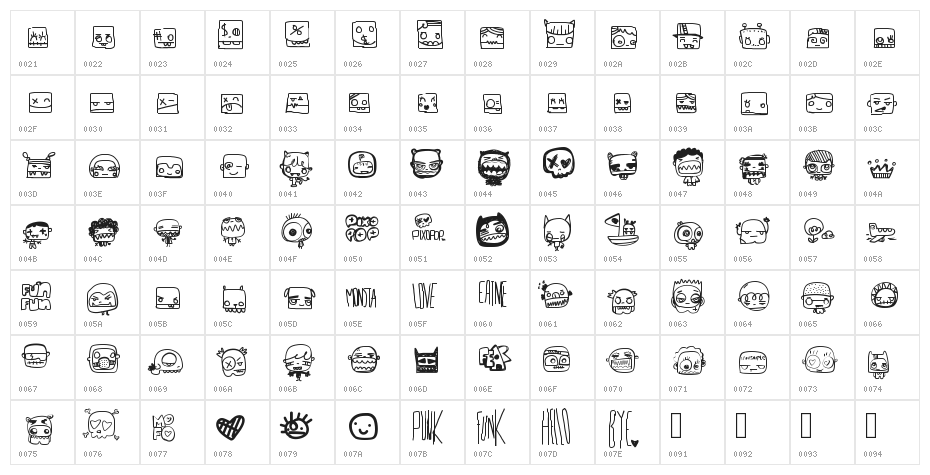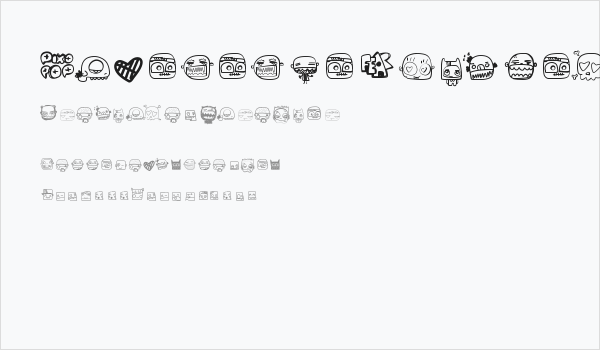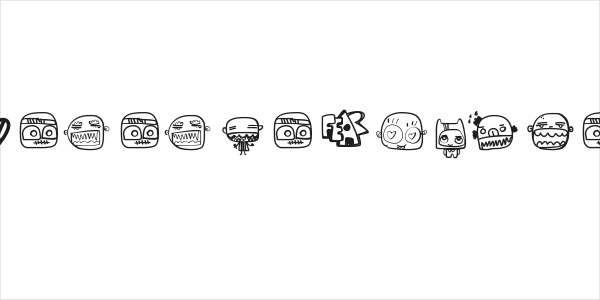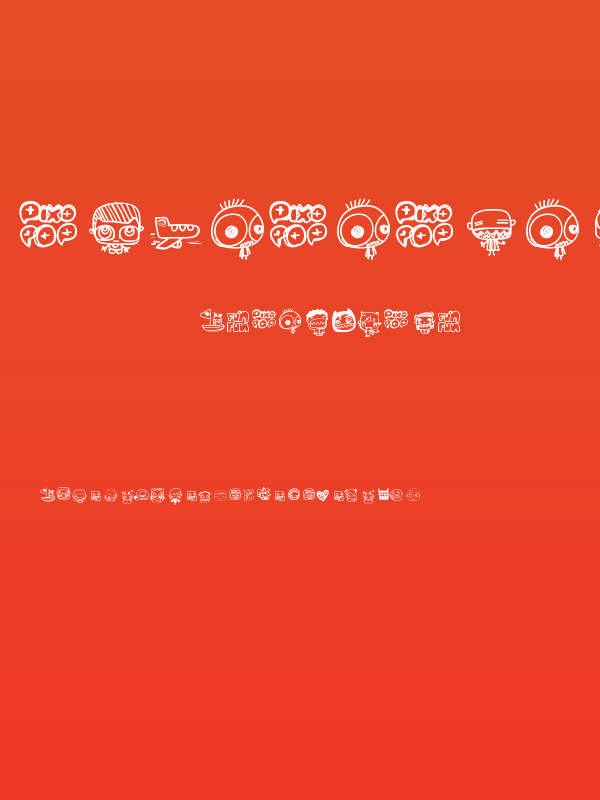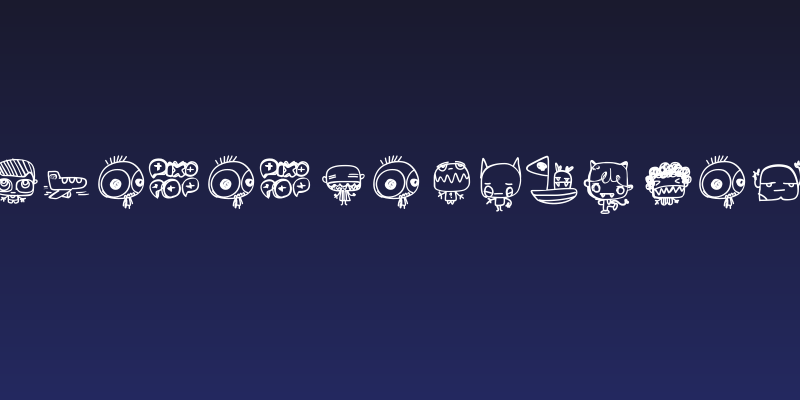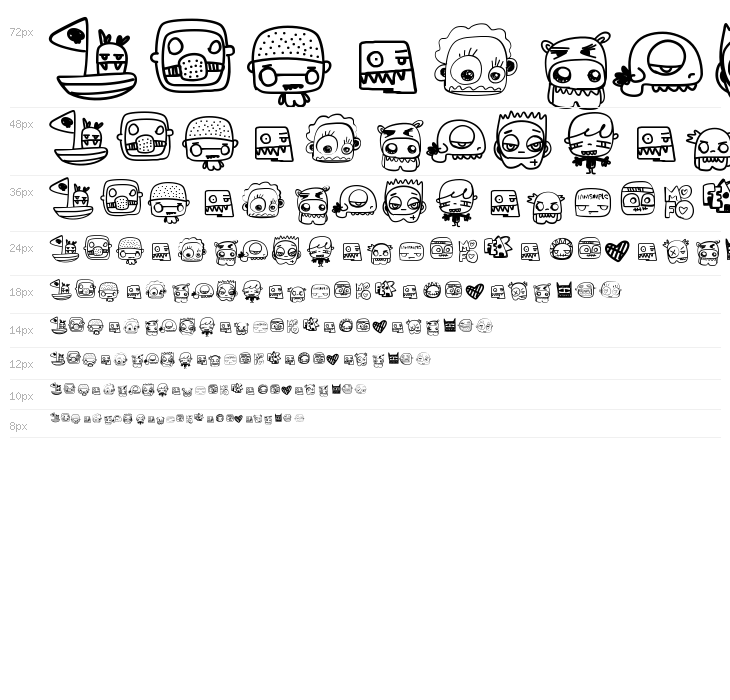
PixopopMonstalove Font
PixopopMonstalove Description
This is a whimsical and playful decorative font featuring a variety of quirky and imaginative characters. Each letter is represented by a unique cartoon-like figure, adding a sense of fun and creativity to any design. The characters are bold and expressive, with a hand-drawn aesthetic that gives them a personal touch. The font is perfect for projects that require a lighthearted and artistic vibe, making it ideal for children's materials, creative branding, or any design that aims to capture attention with its distinctive style.
| Proposed Projects | Ideal for children's books, creative branding, playful posters, and artistic designs. |